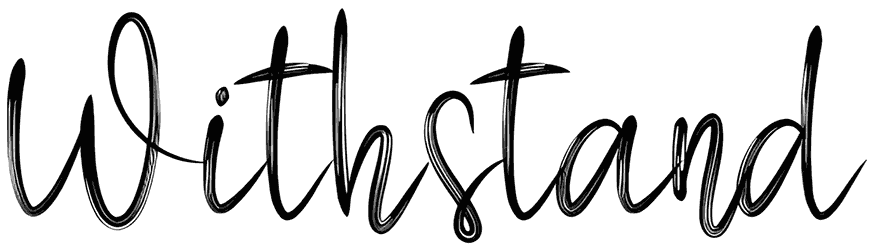
Withstand Font
The combination of line and drawing is what is added to your writing at the same time by downloading Withstand. This brush font is a tool for tasteful designers who want to create a unique texture in their writings. So nothing is better than brush marks on paper.
Using the personal feeling that this script font gives you and its decorative twists, you’ll no longer need to put in extra effort to make your invitations, t-shirts, and wedding cards attractive.